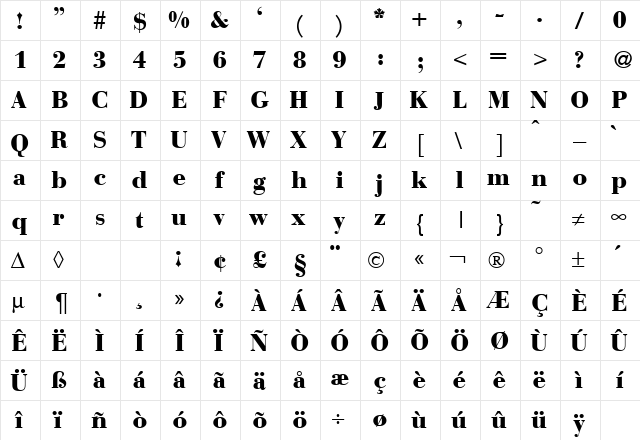
BodoniRecutHeavy Regular
Design Context for BodoniRecutHeavy Typeface
BodoniRecutHeavy is a composed and adaptable typeface that performs quietly and consistently across a wide range of design contexts.